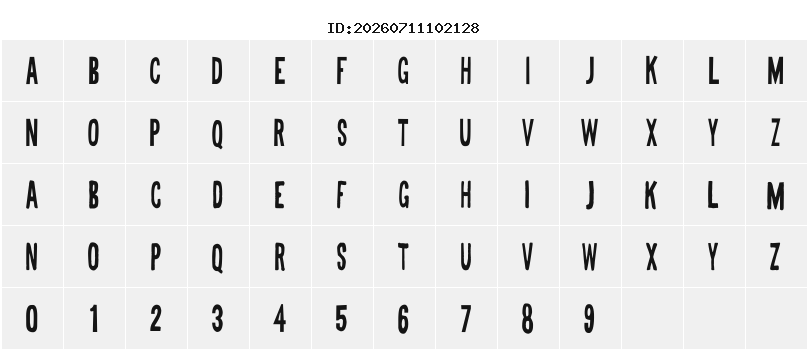
About Half Cut Gothic.ttf
Half Cut Gothic.ttf is a modern, elegant sans-serif font designed for ultimate readability and visual harmony. Perfect for branding, headlines, web design, and print materials.